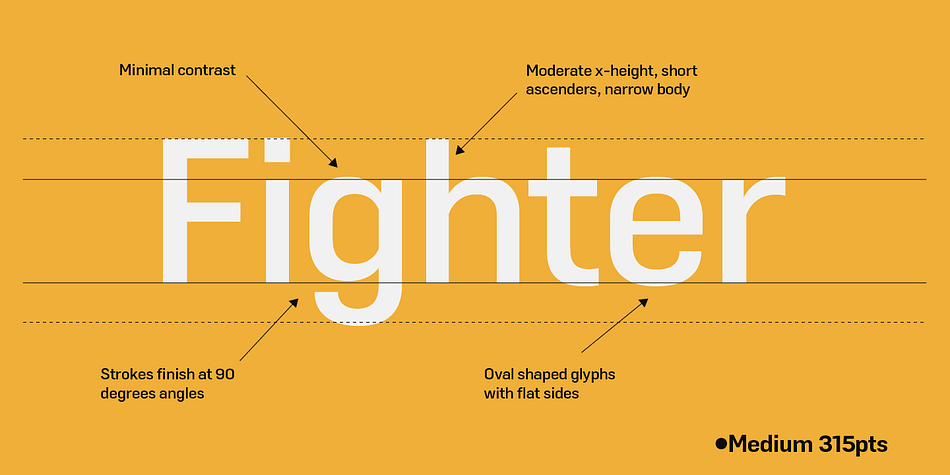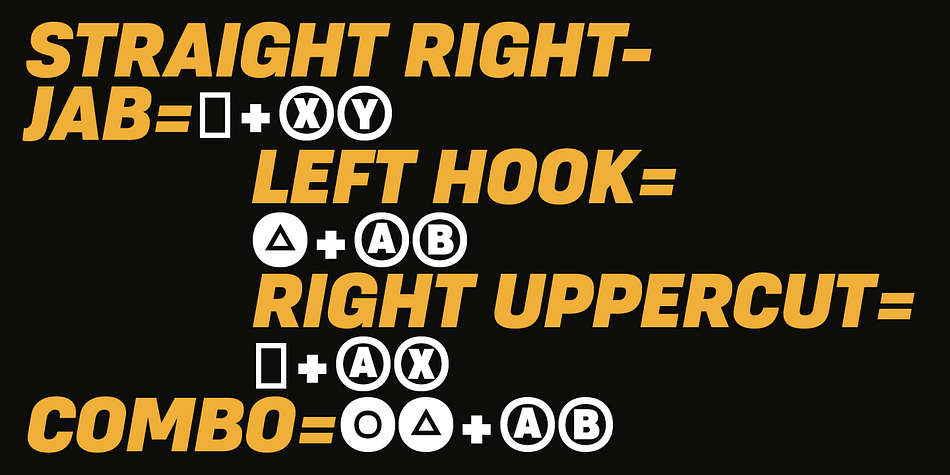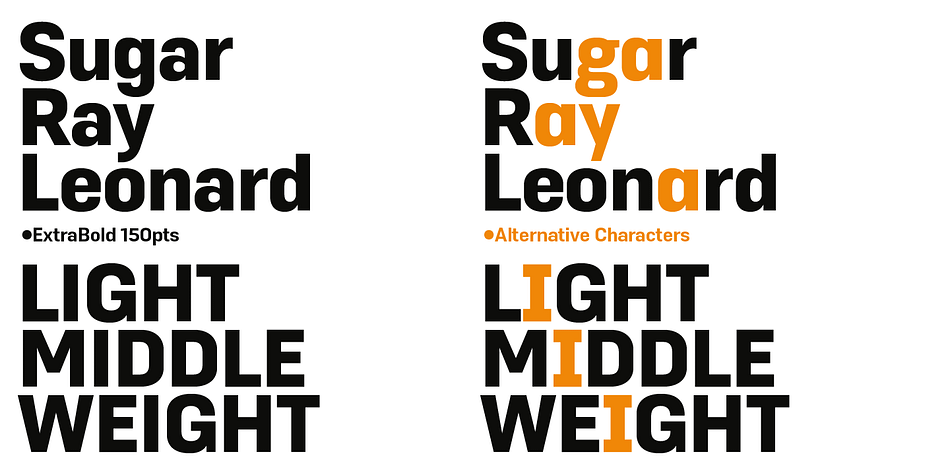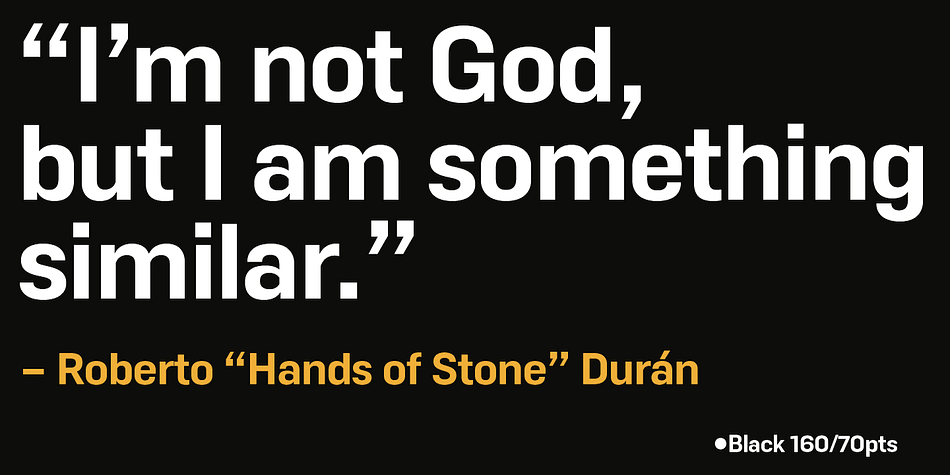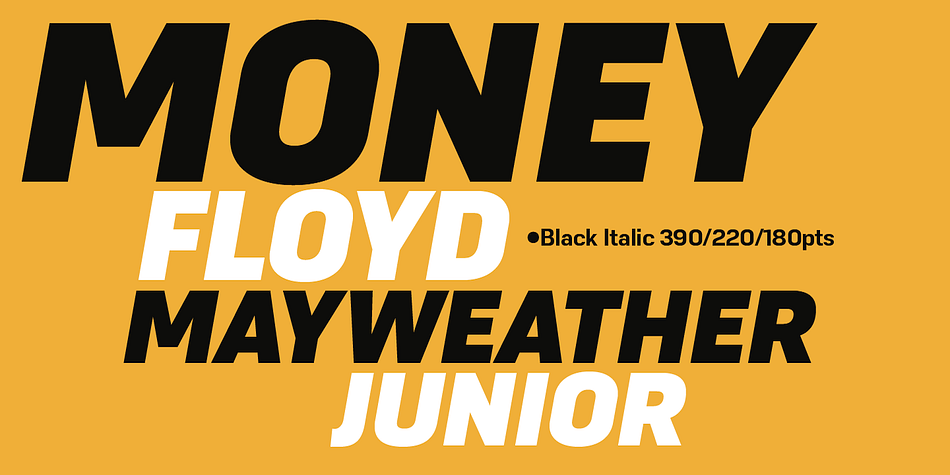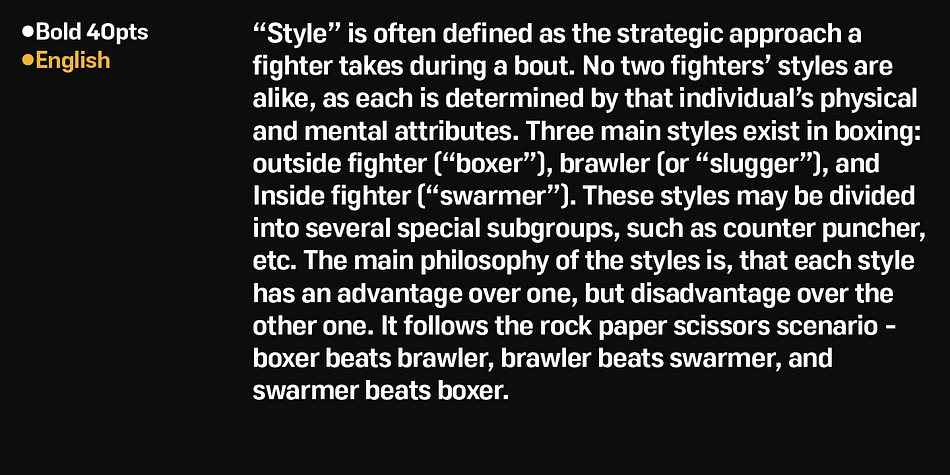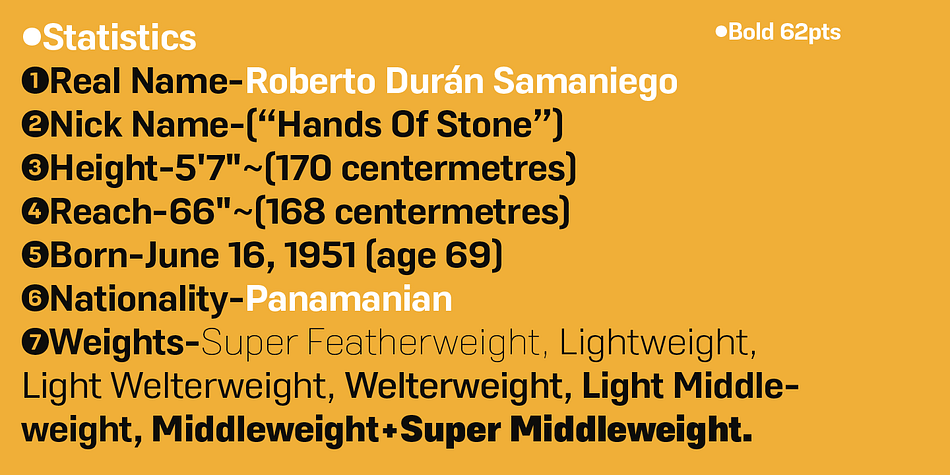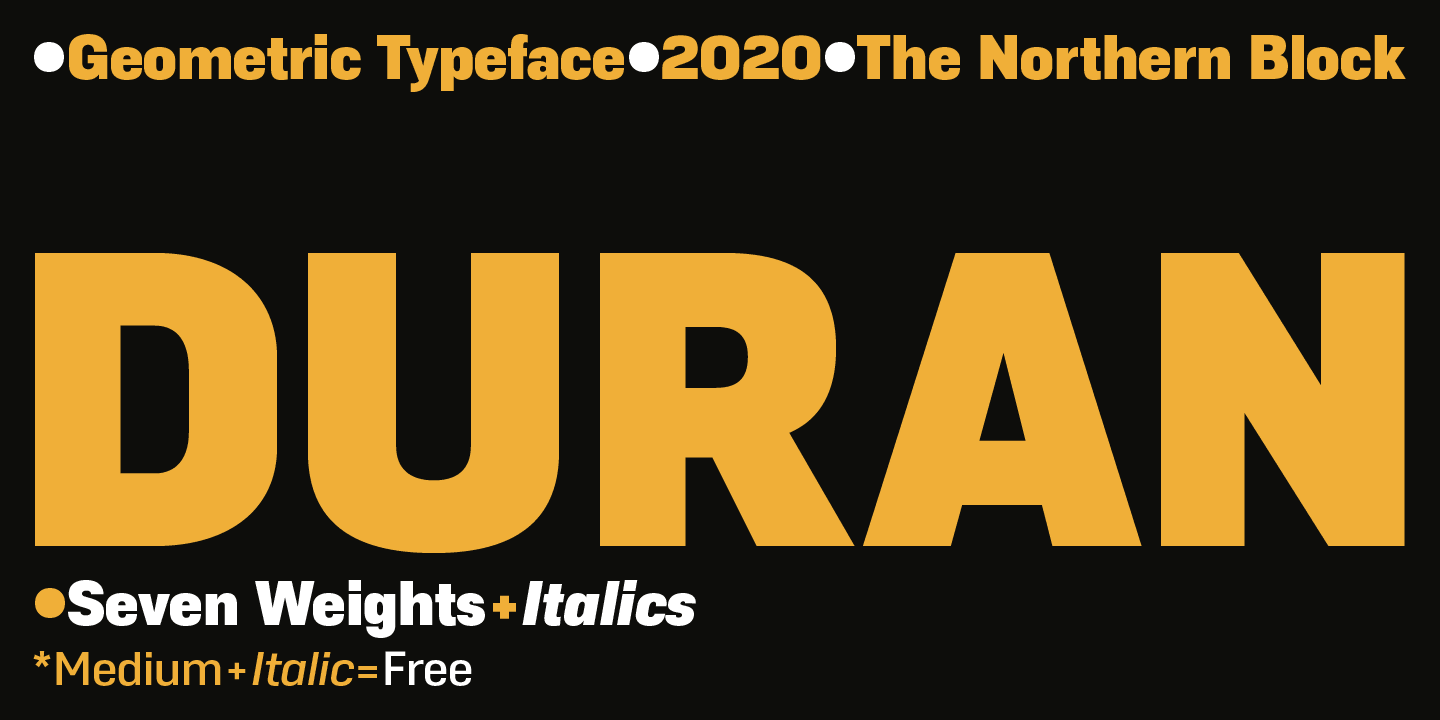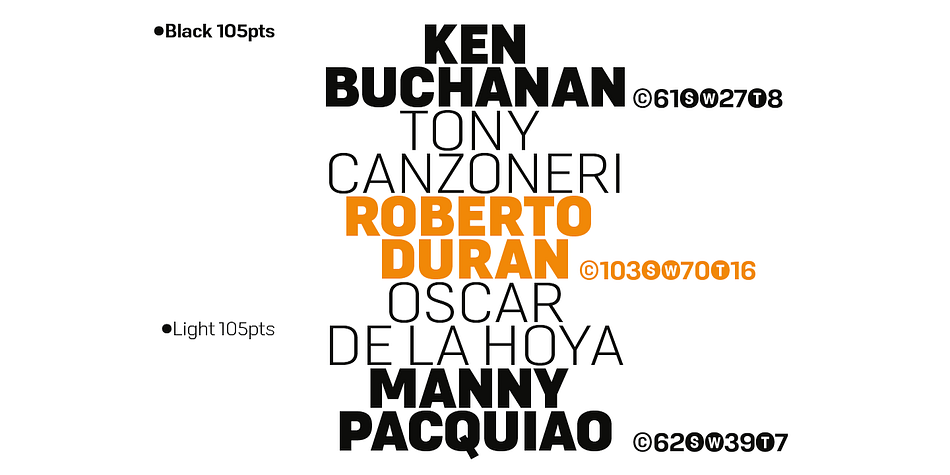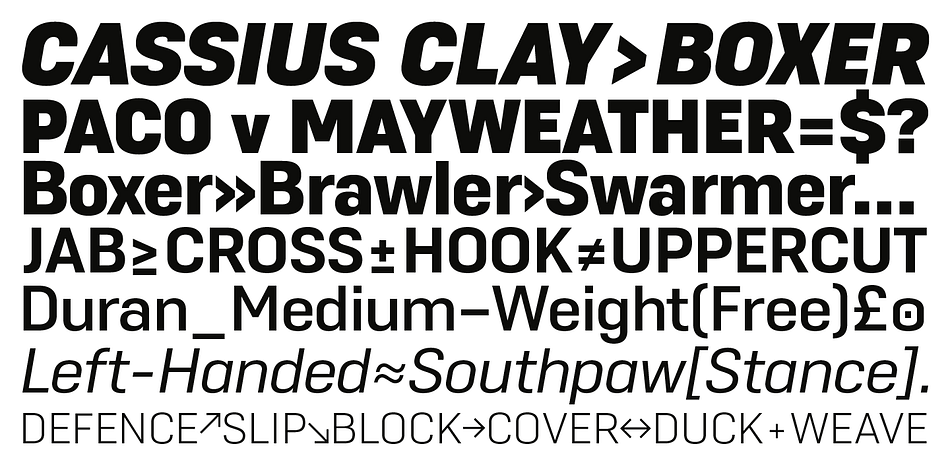
Designed by Jonathan Hill, Duran is a sans serif font family. This typeface has fourteen styles and was published by The Northern Block.
Duran is a strong, versatile geometric sans with industrial quality. Inspired by technical style letterforms with simple construction, the typeface is useful in both large format and body text. Its compact lateral shape helps save space across layouts and is good to go across a wide range of modern applications.
Details include seven weights with matching italics and over 670 characters per style. Opentype features consist of eight variations of numerals, including inferiors, superiors, fractions, case figures and circled figures.
Additional features include case-sensitive forms, stylistic alternates, ligatures, game symbols, arrows and language support covering Western, South and Central Europe.